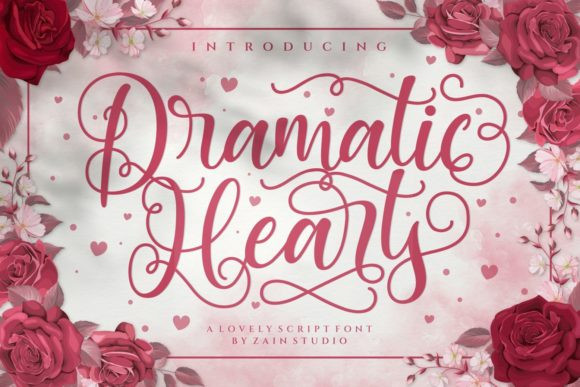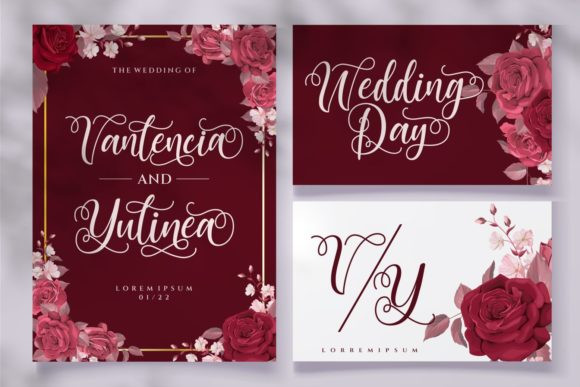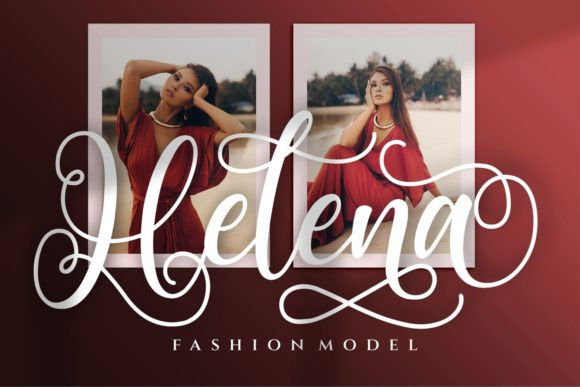
Dramatic Hearts Font
Dramatic Hearts FontDramatic Hearts is a ravishing script font. This font is neatly crafted and highly detailed. Whatever the topic, this font will be a wonderful asset to your font library, as it has the potential to enhance any creation.